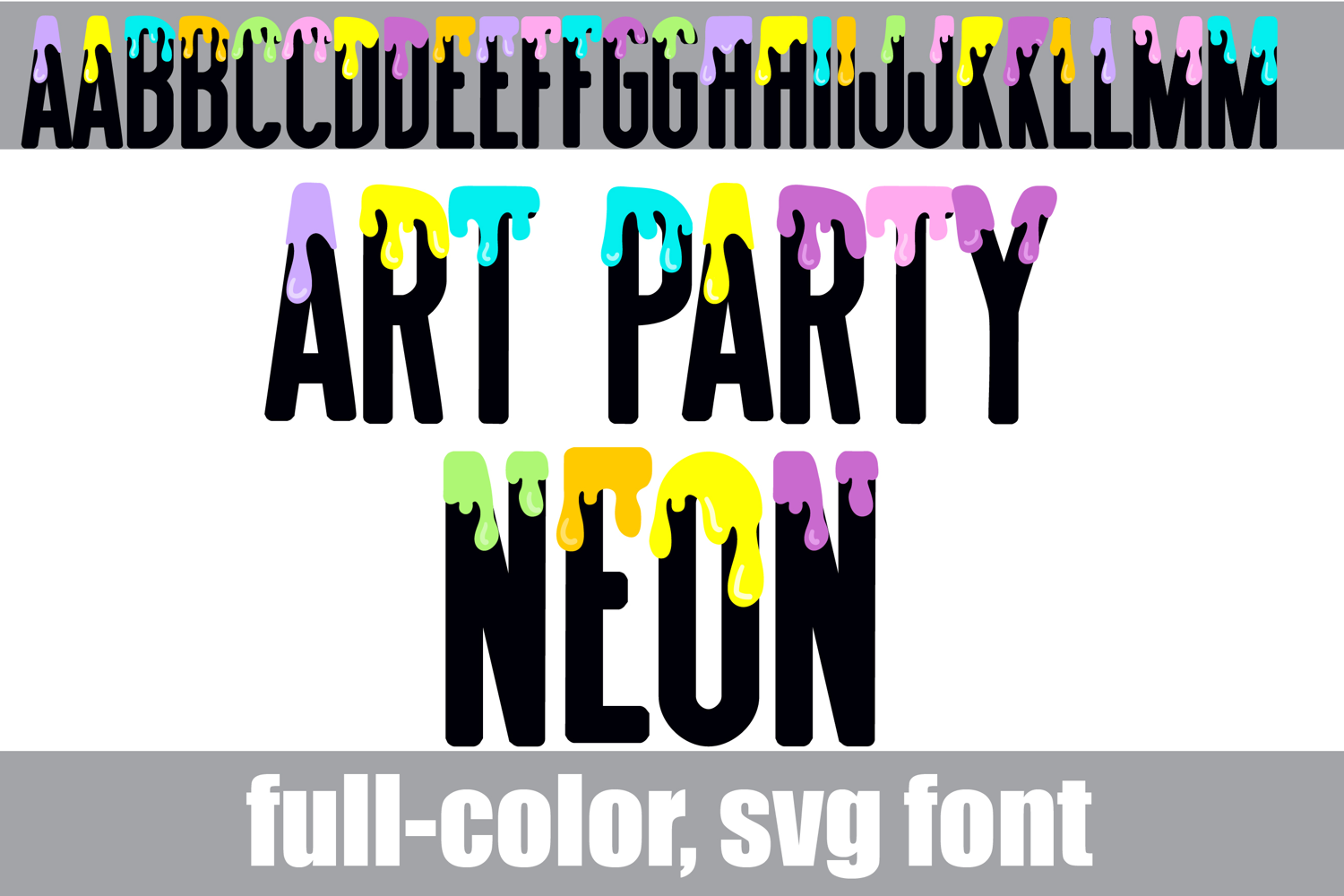
Art Party Neon Color Font
This full-color font features letters that look like dripping paint. There is an alt case of each letter with a different color combination.